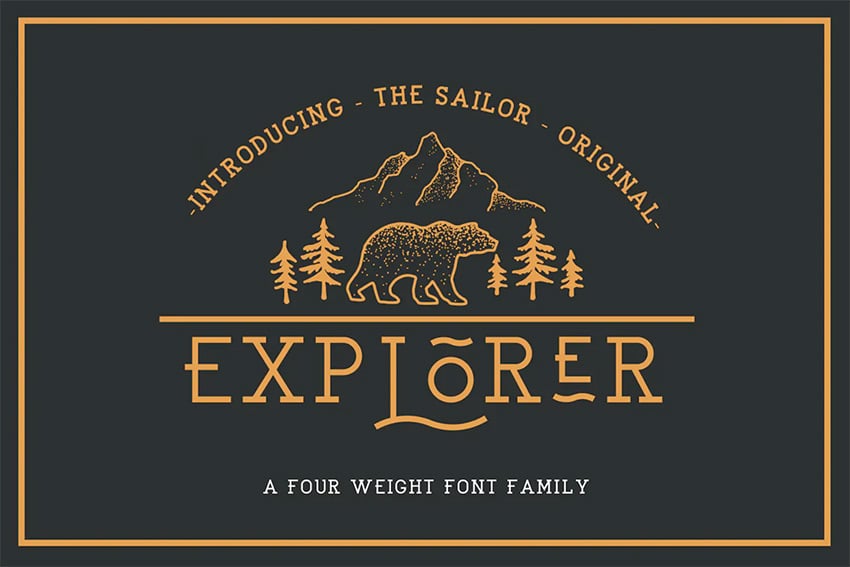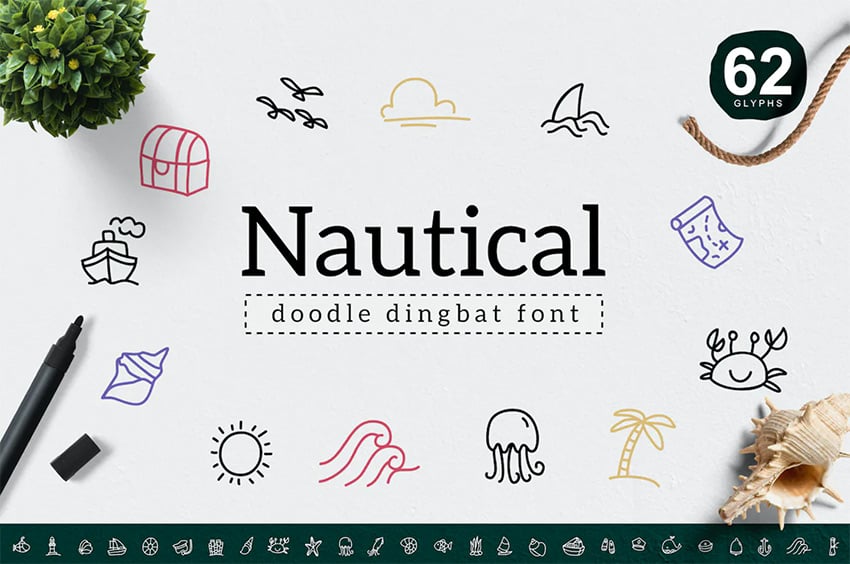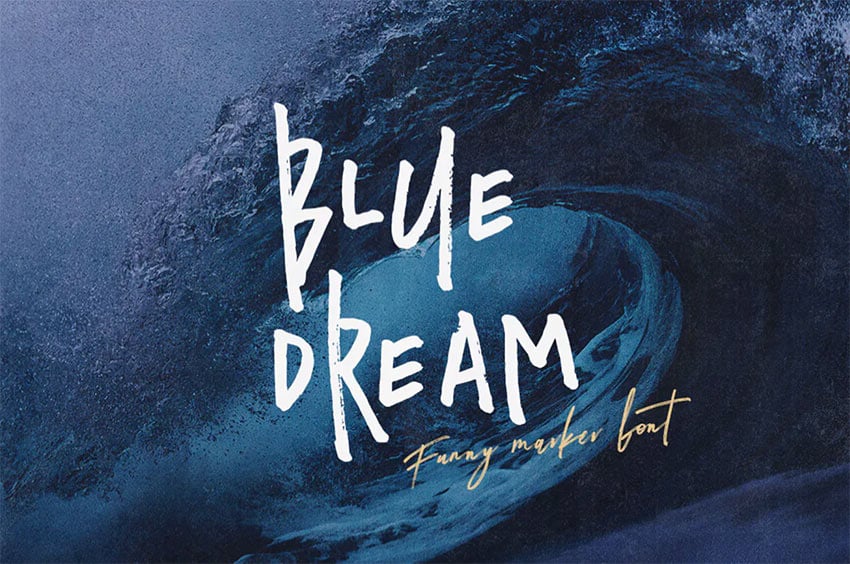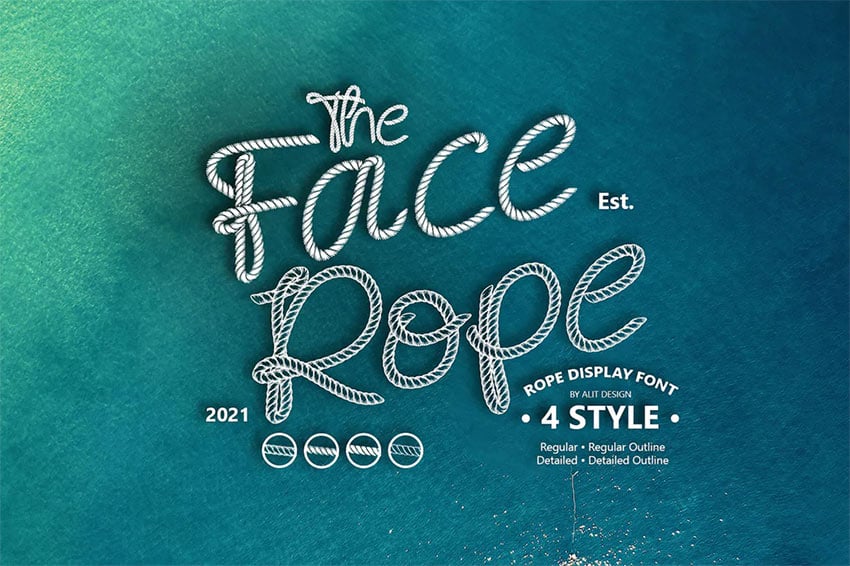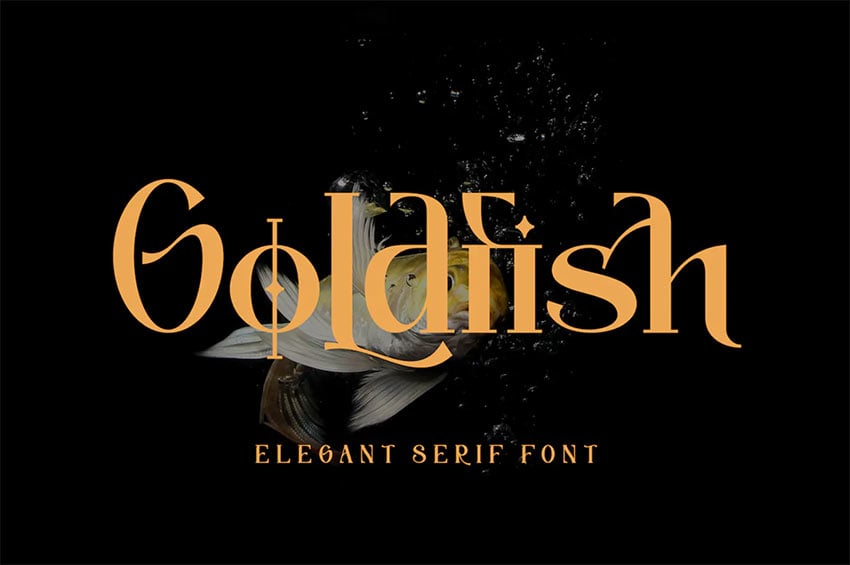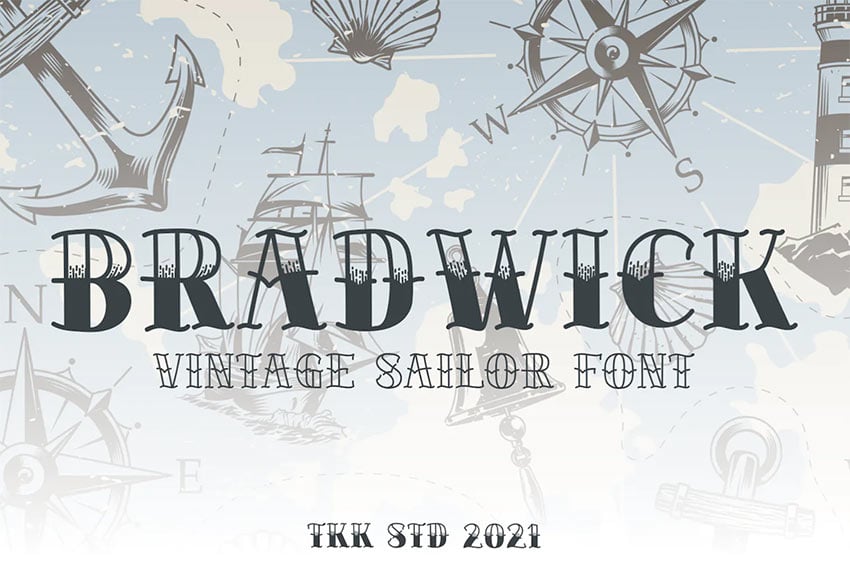
32 Best Nautical Fonts (Old Nautical, Tattoo and Sea Inspired Fonts)
Are you into sea-themed designs or nautical tattoo fonts? In this list you'll find a variety of fonts related to sailors, ocean, waves, and even nautical tattoo fonts and iconic Sailor Jerry fonts. Let's explore amazing premium nautical fonts from Envato Elements!
33 Best Nautical Fonts
1. Sailors Font (WOFF)
A stunning sans serif font that captures the lure of the sea, Sailors offers two styles: round and rough. The font for ocean designs also includes uppercase standard characters, punctuation, and multiple language support.
2. Dark Ocean Font (OTF, TTF)
Want to do a nautical map tattoo? Try this vintage navy font. Old nautical fonts are gaining in popularity, and that's no wonder when they capture so well the romance and charm of the open water. These five nautical font styles pair seamlessly together to create variety while maintaining unity of style.
3. Sailor Font (OTF, TTF)
Looking for Sailor Jerry font alternatives? A playful and charming sailor font which comes in two versions, regular and filled, this pair gives a fresh twist to nautical font styles. Combine both navy fonts or use them individually to create your own stunning designs, like a nautical map tattoo.
4. LightHouse Sea Font (OTF, TTF, WOFF)
A nautical-looking font with a great textured surface, this clever and elegant navy font is available in four weights: light, medium, regular, and bold. The nautical sea font offers an uppercase alphabet exclusively, but contains numbers and a large selection of symbols and extra characters to support different languages.
5. Eastern Ocean Font (OTF, TTF, WOFF)
Looking for a different font for ocean designs? This family of nautical font styles is designed with rounded edges and imperfections in the characters to give a vintage vibe. The collection features regular, blind, rusty, and ornamental styles.
6. Vintage Marine Font (OTF, TTF, WOFF)
A gorgeous nautical styled font with vintage flair, similar to the Sailor Jerry font. Use this font when you want to add a bit of flair and drama to your project. The font family offers eight variations, numerals, punctuation, accents, and more.
7. The Ocean Font (OTF, TTF, WOFF)
There can be nothing more charming than this wonderful nautical font that uses silhouettes of various sea creatures within the lettering and numbers to help form the font for ocean themes. If you are looking for a nautical numbers font, this is a great one to choose.
8. Vintage Sailor Font (OTF, TTF, WOFF)
A modern and simple vintage slab serif font, with smooth edges to simulate vintage printing, the nautical font has never looked so stylish. The font similar to the Sailor Jerry font contains an uppercase alphabet with alternative characters, numbers and symbols and comes in four weights.
9. Ocean Font (OTF, TTF)
If you're looking for a unique ocean font, look no further than this awesome typeface, which comes in four styles to make sure you have just the right look for your next project.
10. Sea Horse Fish Font (OTF, TTF)
Choose this nautical-looking font if you want to capture the swashbuckling adventures of eras gone by. Old nautical font styles don't come any better.
11. Ocean Twelve Sailor Font (OTF, TTF, WOFF)
Get two for the price of one with these awesome nautical font styles that combine a modern serif font with a beautiful cursive font, both inspired by vintage typography. The irregular height of the font is meant to reflect the motion of waves while capturing the essence of the hand-drawn.
12. Galley Sea Font (OTF, TTF)
This nautical font is a hand-drawn serif font that takes its inspiration from the undulating motion of waves. It comes with the usual upper and lowercase letters, with some pretty nifty graphic flourishes thrown in for good maritime measure.
13. Hand Writing Ocean Font (OTF, TTF, WOFF)
Another nautical font that takes its inspiration from the motion of the ocean, this nautical sea font is filled with summer vibes and offers upper and lowercase letters, numbers, and loads of punctuation.
14. Cute Ocean Font (OTF, TTF)
Ever wondered what tropical nautical font styles look like? Well, wonder no more. This fun, curly-whirly nautical sea font includes both regular and monogram styles. They have been handcrafted to bring a bit of lightheartedness to wedding invitations, branding, greeting cards, and labels. They include upper and lower case alphabets, numbers, and punctuation marks.
15. Sailor Jerry Font (OTF, TTF)
A Sailor Jerry font alternative for the daring, this nautical font has a bit of an "Art Deco meets the sea" vibe. The caps font contains 26 letters, and documentation is included.